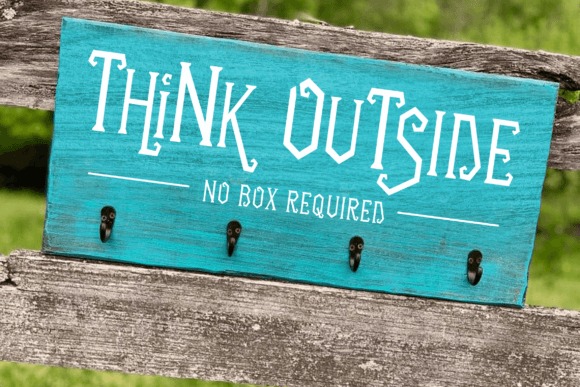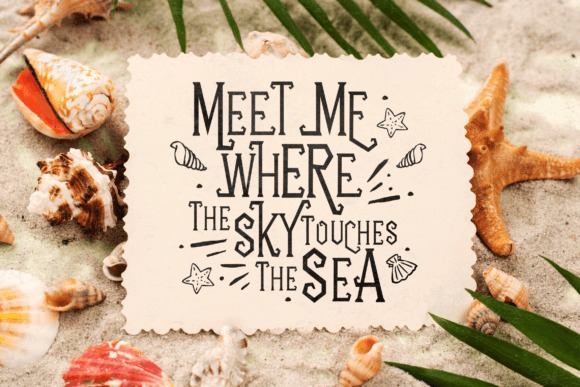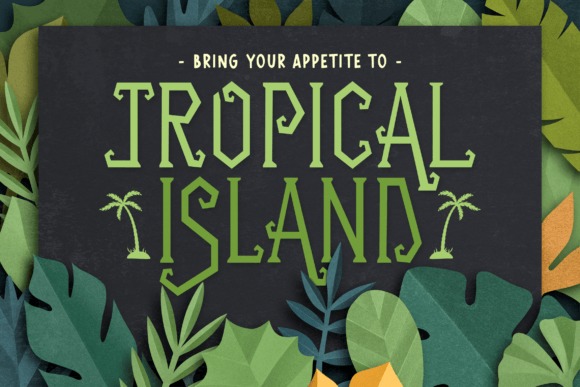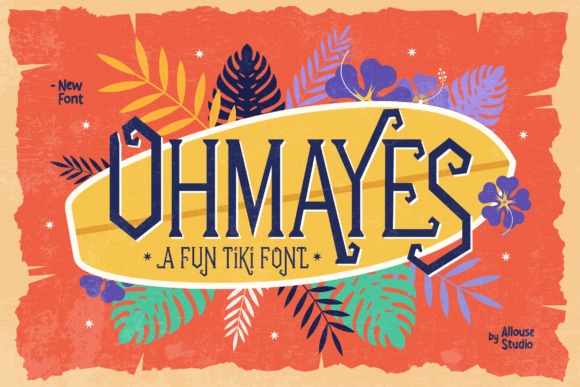
Ohmayes Font
Ohmayes Script Font
This is a Handwritten Script Font. Ohmayes is perfect for product packaging, branding project, megazine, social media, wedding, or just used to express words above the background.
Allouse.Studio